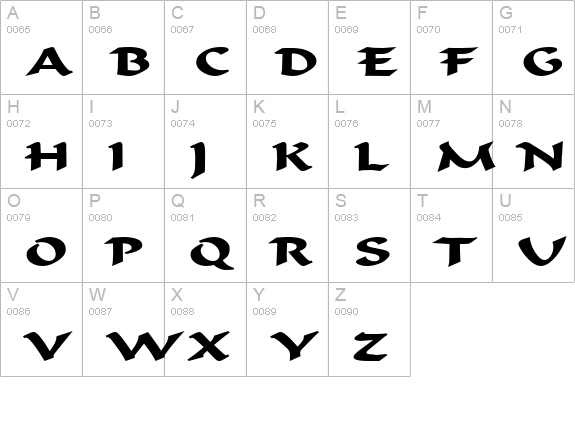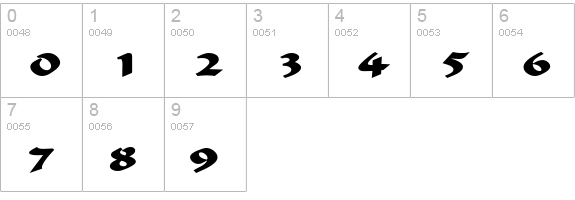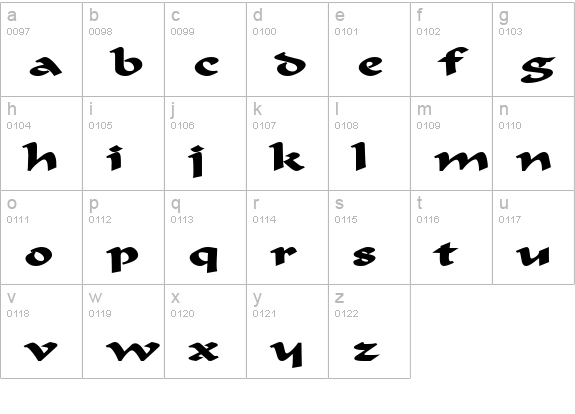
Flat Brush Extended Bold is a strong, high-contrast, extended-width variant in the Flat typeface family \xE2\x80\x94 well suited to headlines, attention-grabbing titles, and strong calls-to-action.
The Flat Brush Extended Bold font is a modern and stylish typeface perfect for making a bold statement in your designs. With its sleek lines and extended characters, this font exudes confidence and sophistication. Its thick brush strokes give it a strong and impactful presence, making it ideal for headlines, posters, and branding projects. Best of all, the Flat Brush Extended Bold font is available for free download at FontsMarket.com. So whether you're a designer looking to add a touch of flair to your work or a business owner in need of a striking new logo, this font is sure to make a lasting impression. Download it today and elevate your designs to the next level!